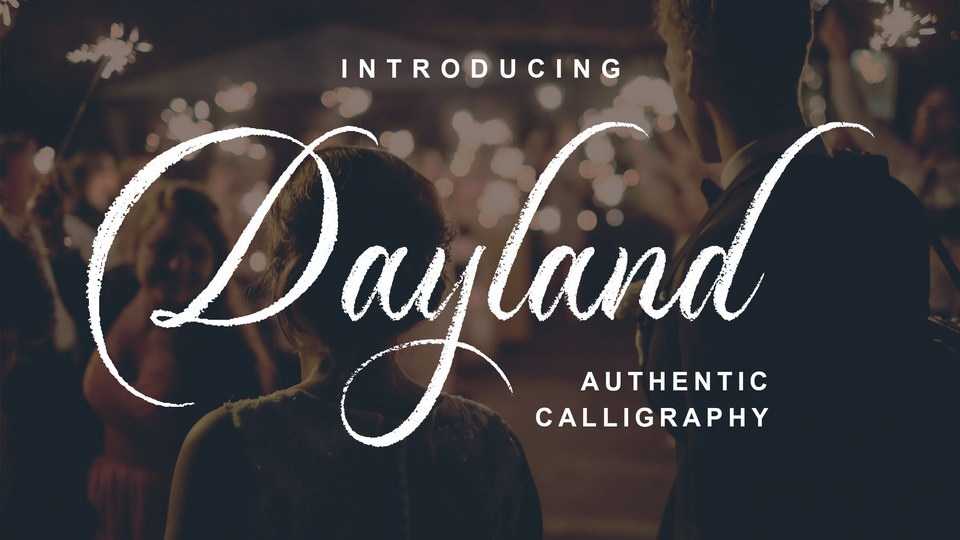
Dayland Script Font › Fontesk – Download Grátis
Download Dayland font, a stunning modern calligraphy script with charming look. Dayland script is perfect for logo, wedding design, romantic quote, poster, social media kit, book cover, tshirt design, packaging and any more.
Designer: Blankids Studio